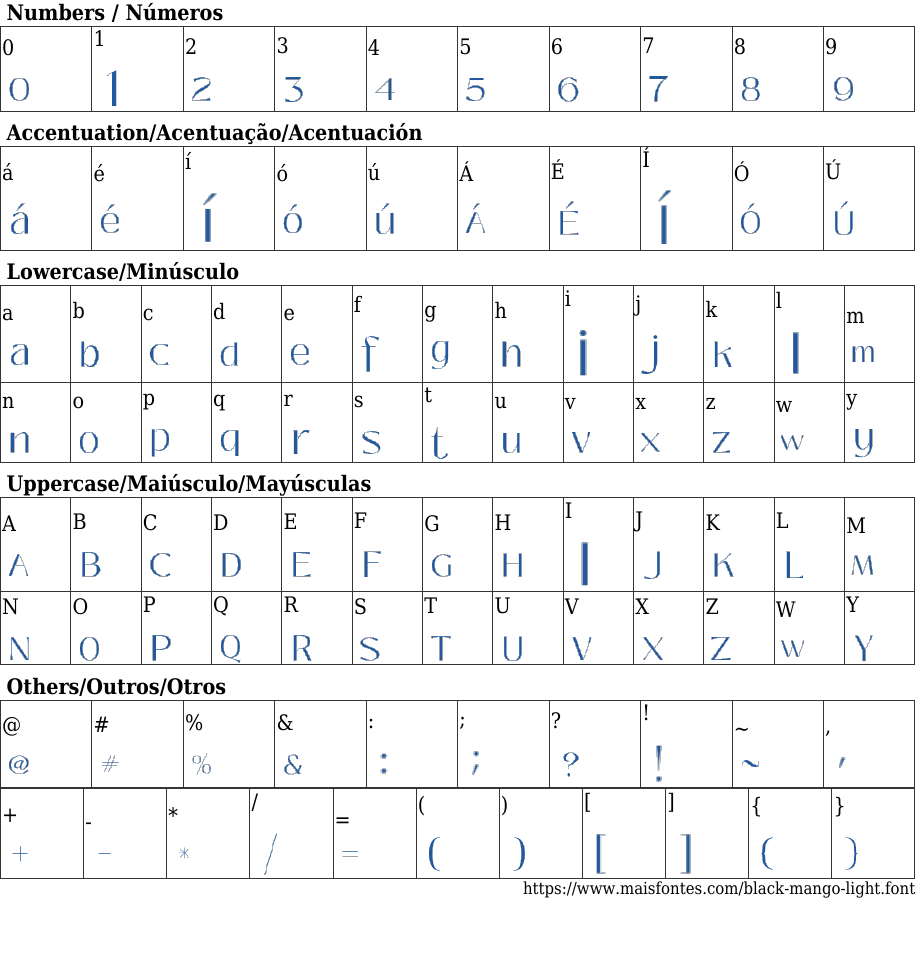
Black Mango Font Download - Black mango font family is a modern simple family consisting of 9 weights and has dozens of alternates to combine with. Black mango contains 9 styles and family package options. Black mango version 1.000 is a font designed by kadek mahardika. Installable on pc, mac, linux, ios, and android platforms. Discover the free black mango regular font at free font download ! You can see more designs by this author on the website:.
Installable on pc, mac, linux, ios, and android platforms. You can see more designs by this author on the website:. Black mango font family is a modern simple family consisting of 9 weights and has dozens of alternates to combine with. Black mango contains 9 styles and family package options. Discover the free black mango regular font at free font download ! Black mango version 1.000 is a font designed by kadek mahardika.
Black mango version 1.000 is a font designed by kadek mahardika. Discover the free black mango regular font at free font download ! Installable on pc, mac, linux, ios, and android platforms. You can see more designs by this author on the website:. Black mango font family is a modern simple family consisting of 9 weights and has dozens of alternates to combine with. Black mango contains 9 styles and family package options.
Black mango font family is a modern simple family consisting of 9 weights and has dozens of alternates to combine with. You can see more designs by this author on the website:. Black mango version 1.000 is a font designed by kadek mahardika. Black mango contains 9 styles and family package options. Discover the free black mango regular font at.
Black mango contains 9 styles and family package options. Installable on pc, mac, linux, ios, and android platforms. Black mango font family is a modern simple family consisting of 9 weights and has dozens of alternates to combine with. Discover the free black mango regular font at free font download ! Black mango version 1.000 is a font designed by.
You can see more designs by this author on the website:. Installable on pc, mac, linux, ios, and android platforms. Discover the free black mango regular font at free font download ! Black mango font family is a modern simple family consisting of 9 weights and has dozens of alternates to combine with. Black mango contains 9 styles and family.
Discover the free black mango regular font at free font download ! Black mango contains 9 styles and family package options. Installable on pc, mac, linux, ios, and android platforms. Black mango font family is a modern simple family consisting of 9 weights and has dozens of alternates to combine with. You can see more designs by this author on.
Installable on pc, mac, linux, ios, and android platforms. You can see more designs by this author on the website:. Black mango contains 9 styles and family package options. Black mango version 1.000 is a font designed by kadek mahardika. Discover the free black mango regular font at free font download !
Black mango contains 9 styles and family package options. Black mango font family is a modern simple family consisting of 9 weights and has dozens of alternates to combine with. Installable on pc, mac, linux, ios, and android platforms. Discover the free black mango regular font at free font download ! You can see more designs by this author on.
Black mango font family is a modern simple family consisting of 9 weights and has dozens of alternates to combine with. Black mango contains 9 styles and family package options. Black mango version 1.000 is a font designed by kadek mahardika. You can see more designs by this author on the website:. Installable on pc, mac, linux, ios, and android.
You can see more designs by this author on the website:. Discover the free black mango regular font at free font download ! Black mango version 1.000 is a font designed by kadek mahardika. Installable on pc, mac, linux, ios, and android platforms. Black mango font family is a modern simple family consisting of 9 weights and has dozens of.
You can see more designs by this author on the website:. Installable on pc, mac, linux, ios, and android platforms. Black mango contains 9 styles and family package options. Black mango font family is a modern simple family consisting of 9 weights and has dozens of alternates to combine with. Discover the free black mango regular font at free font.
Black mango contains 9 styles and family package options. Discover the free black mango regular font at free font download ! Installable on pc, mac, linux, ios, and android platforms. Black mango version 1.000 is a font designed by kadek mahardika. Black mango font family is a modern simple family consisting of 9 weights and has dozens of alternates to.
Black mango contains 9 styles and family package options. Black mango version 1.000 is a font designed by kadek mahardika. Discover the free black mango regular font at free font download ! Installable on pc, mac, linux, ios, and android platforms.